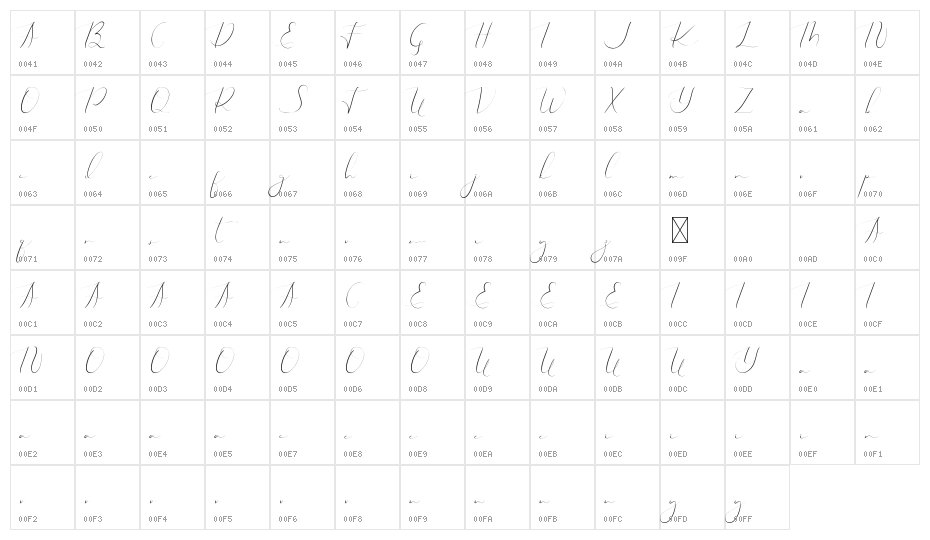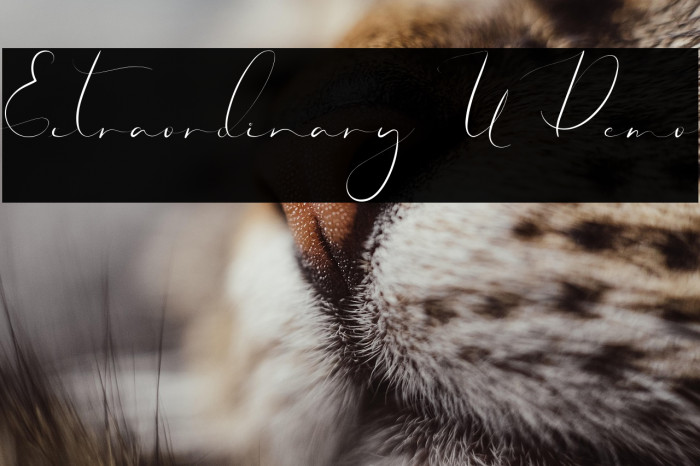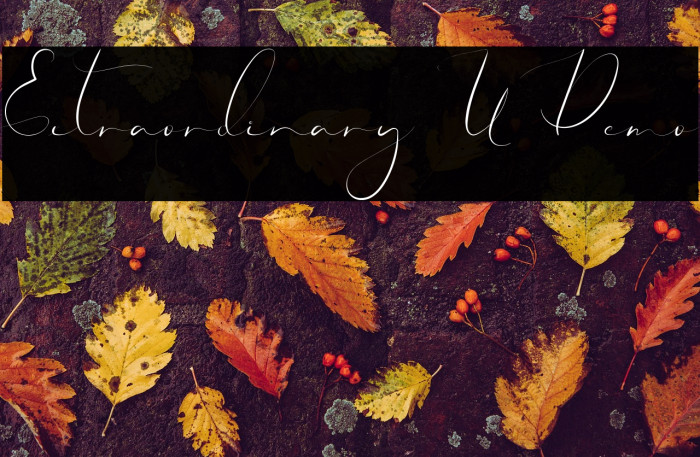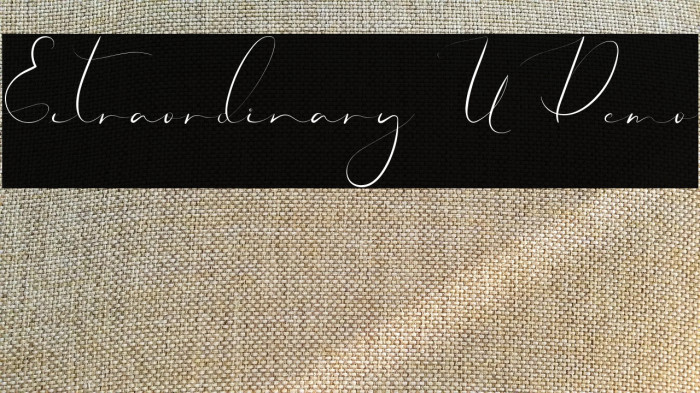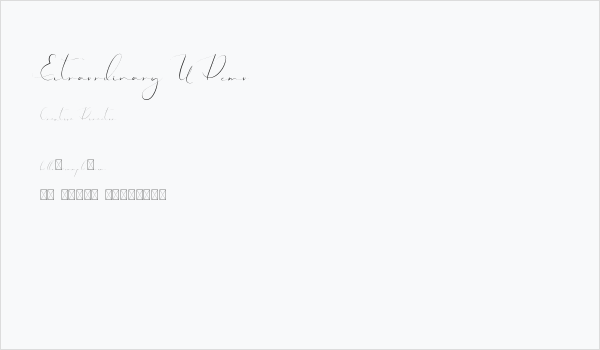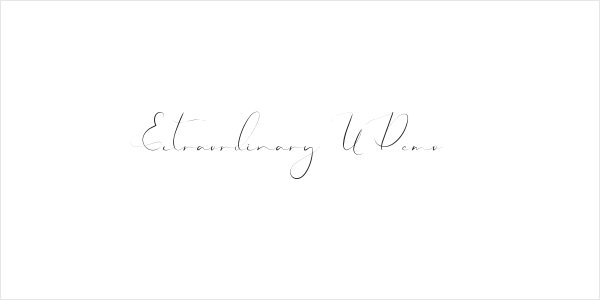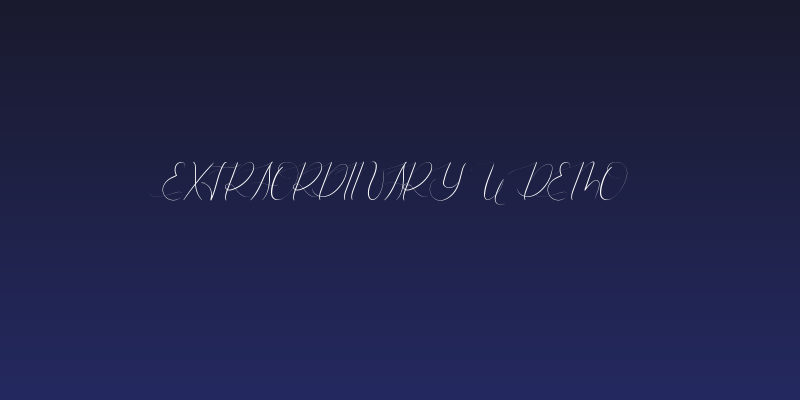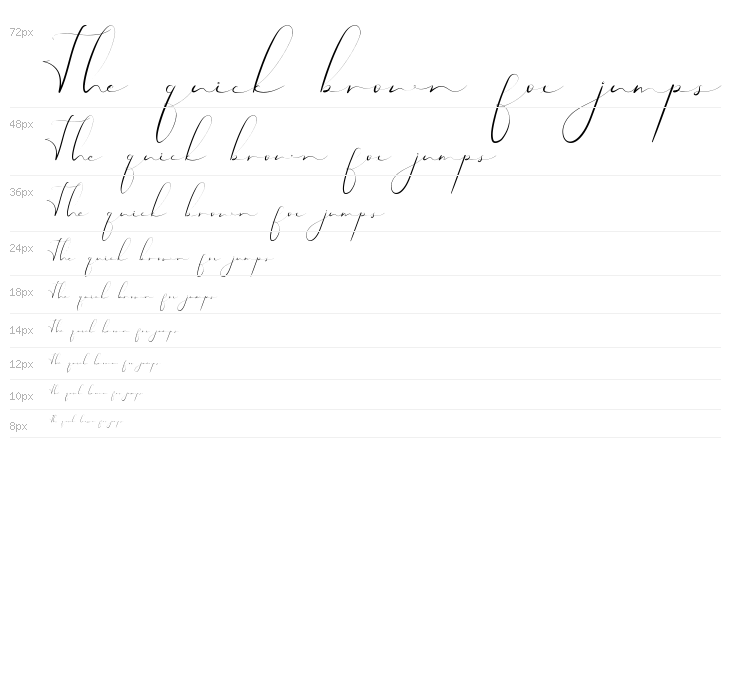
Extraordinary U Demo Font
Extraordinary U Demo Description
This font is an elegant and flowing script that exudes sophistication and grace. The characters are intricately designed with delicate curves and loops, creating a sense of fluidity and movement. Each letter is distinct yet harmoniously connected, making it ideal for conveying a sense of luxury and refinement. The font's thin strokes and high contrast between thick and thin lines add to its delicate appearance, while the generous spacing between characters ensures readability. This font is perfect for projects that require a touch of elegance and class.